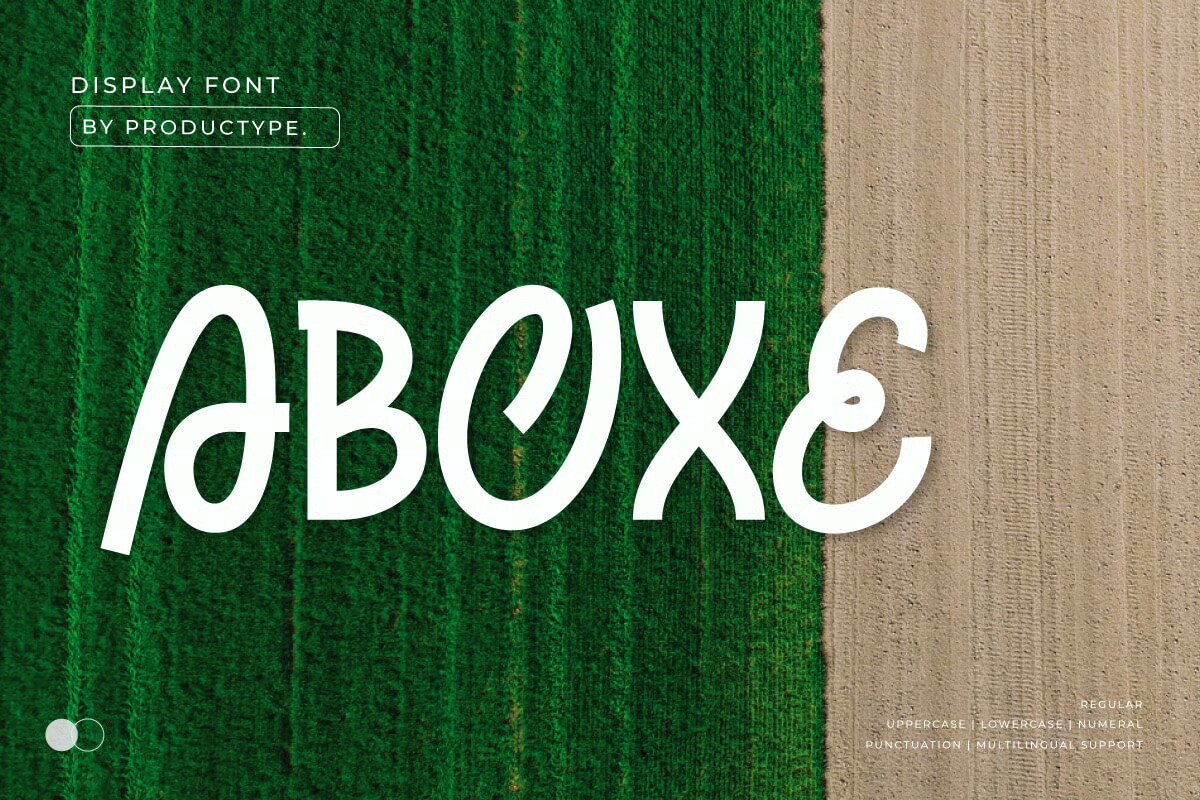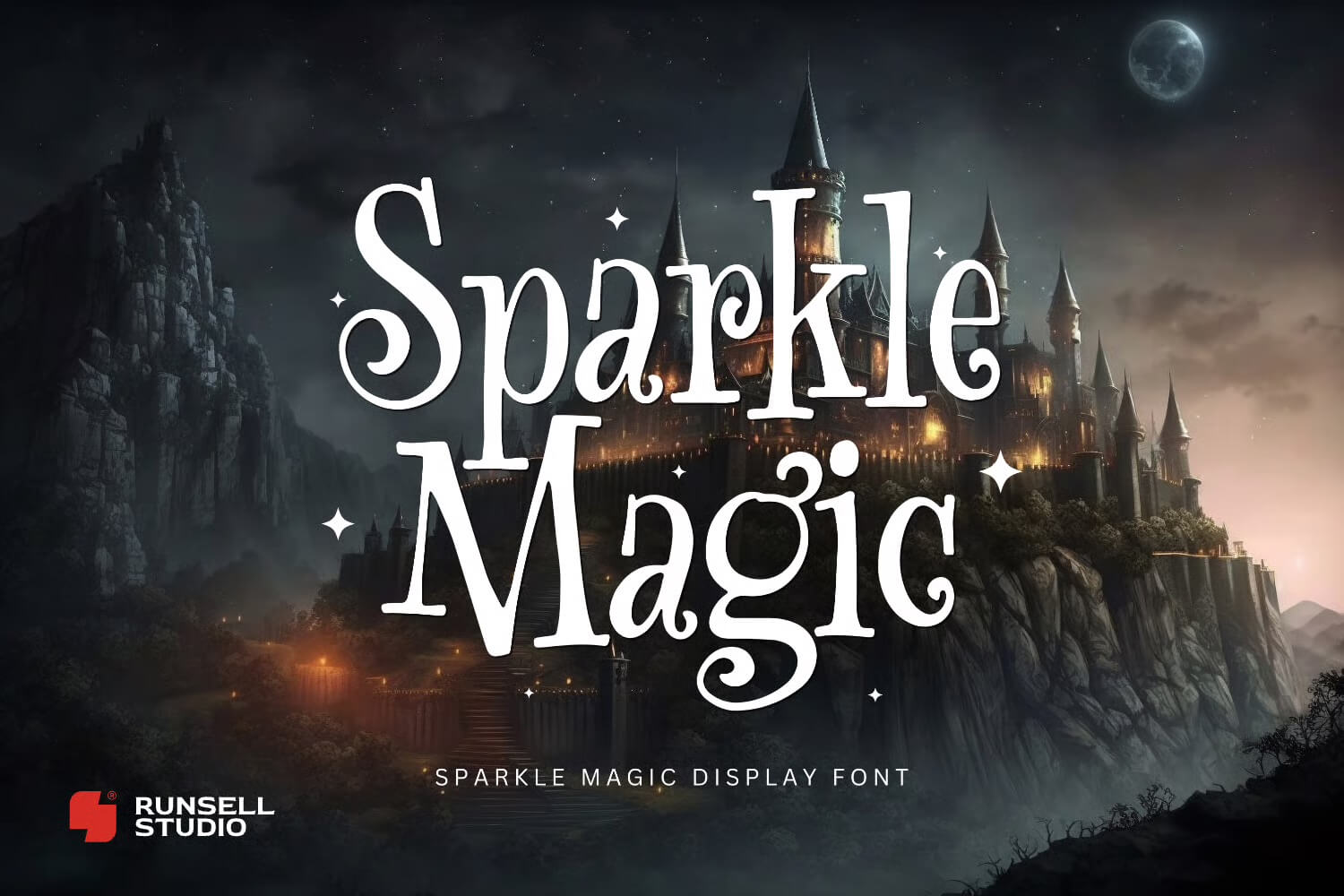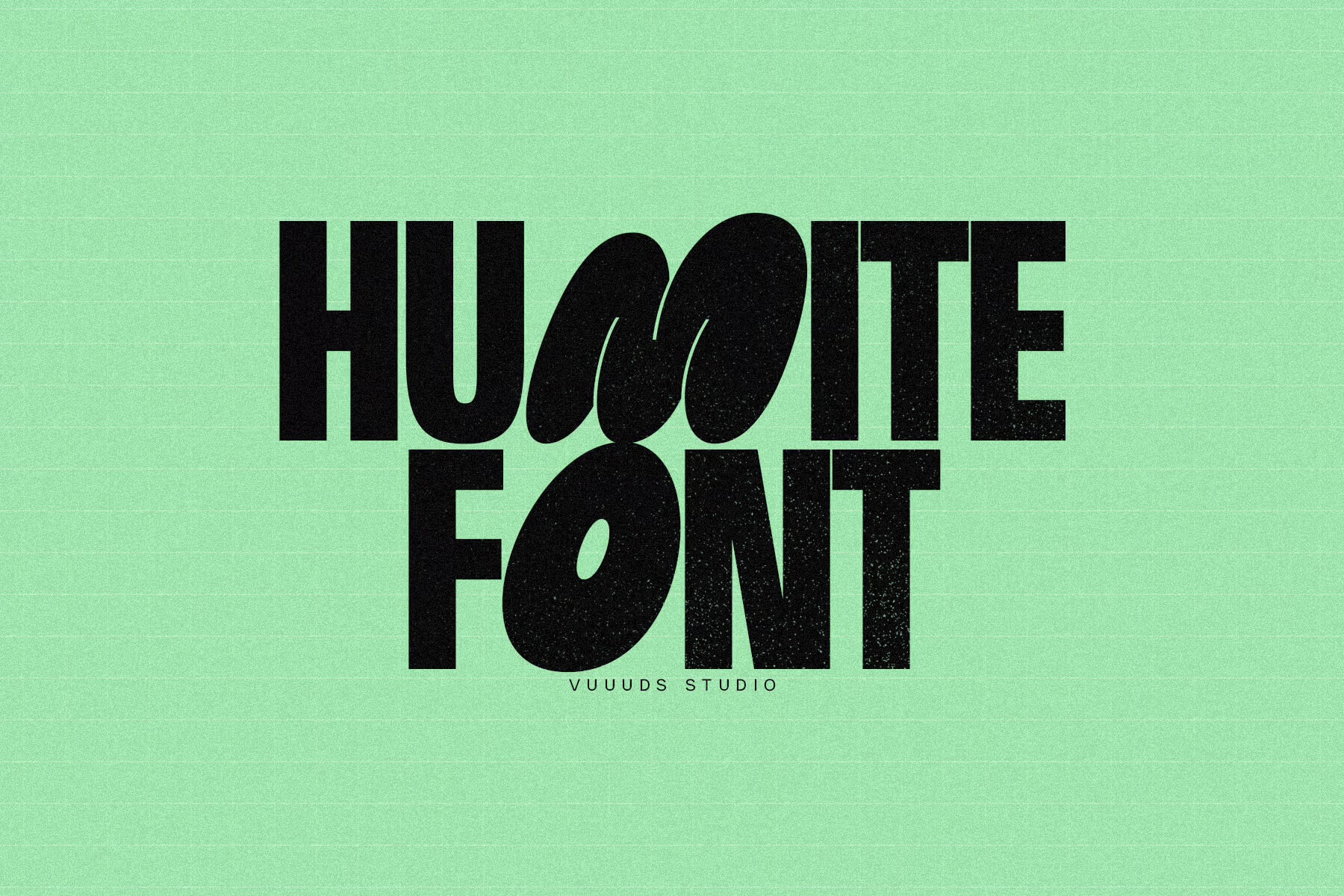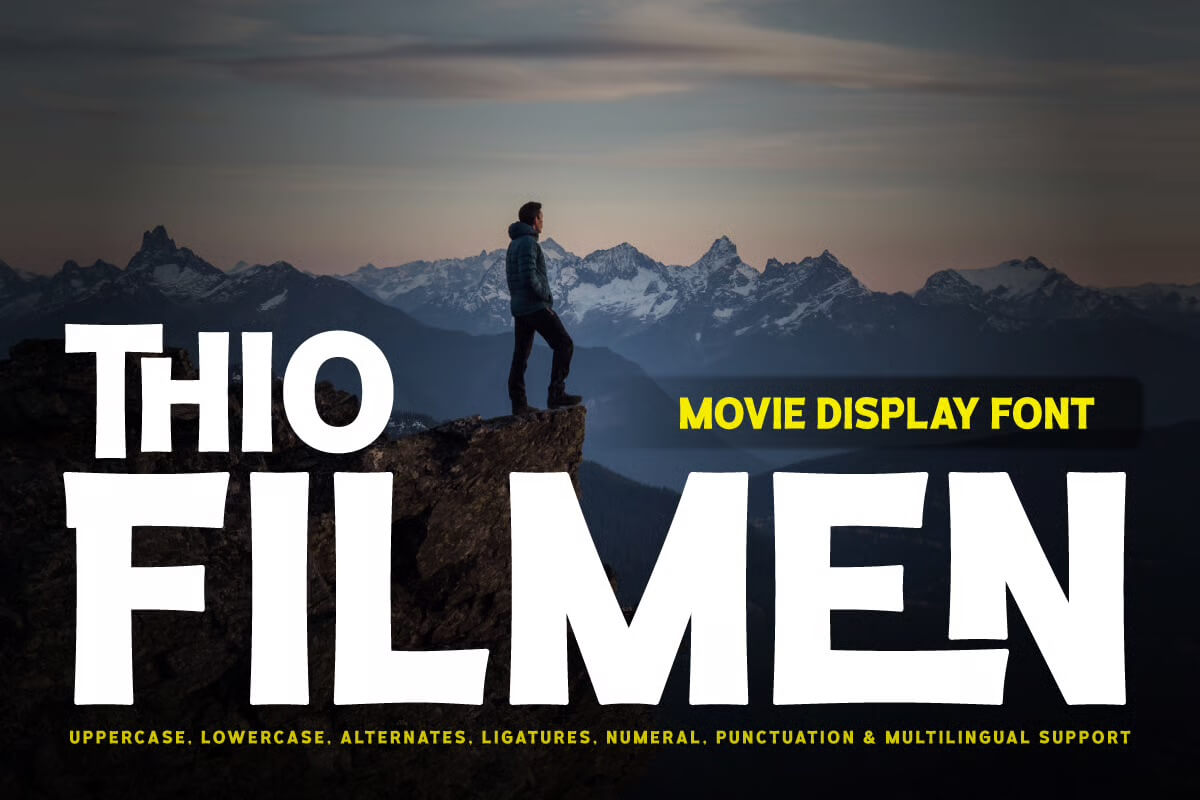
13+ Fonts to Use for Posters
You know that feeling when you’re walking down the street, and a poster just grabs you? Not because of what it says at first, but because something about it looks right.
Nine times out of ten, that’s the font doing its job. I’ve spent years designing posters for everything from neighborhood garage sales to actual paying clients, and I can tell you that picking the right font is probably the most important design decision you’ll make.
This article breaks down exactly which fonts work for posters and why, so you can stop second-guessing yourself and start creating designs that people actually notice.
Poster with colorful background rays highlights "13+ Epic Bold Fonts for Posters That Will Make Your Designs Pop!" in prominent, vibrant text style.
Top Fonts To Use For Posters
Barongko Pastry
A person holds baguettes wrapped in cloth, with the text "Barongko Pastry" displayed prominently over the image.
Barongko Pastry feels playful and charming with a cute serif look that works great for posters, packaging, and branding. It has decorative touches that give a handmade, friendly vibe while remaining versatile enough for labels, invitations, and quirky editorial layouts.
Aboxe – Display Font
Aerial view of green and brown fields with overlay text "ABOVE." Graphic layout for a display font advertisement by Productype.
Aboxe feels like sunshine in type form, playful and relaxed with friendly rounded shapes that suit summer branding, posters, and party invites. It’s versatile, easy to read at many sizes, and packs fun alternates and ligatures to make designs feel warm and joyful.
Halloween Horror – Sparkle Magic
A mystical castle on a cliff under a starry sky, featuring the text "Sparkle Magic" in a whimsical font style.
Sparkle Magic is a chilling Halloween font with sharp, haunted letterforms that radiate spooky tension. It feels perfect for horror posters, thriller covers, and witchy branding, bringing a gothic, eerie vibe that instantly evokes mystery and fear.
Bilqust – Elegant Logo Font
Text showcases "Bilqust" in an elegant serif font on a warm brown background with the caption "Nirmana Visual."
Bilqust feels like a refined, stylish serif made for logos and upscale branding. It blends classic charm with modern clarity so your designs feel elegant without being fussy. Perfect for fashion, posters, and any project that needs a confident, classy voice.
Humite
Bold black text "Humite Font" appears on a textured green background, displaying a modern design style by Vuuuds Studio.
Humite feels fresh and friendly with a modern sans serif core and bold rounded accents that pop. It pairs clean lines with playful weight for versatile branding, headlines, and logos. Alternate glyphs add character and multilingual support keeps it practical for global projects.
Mansure
Blurry grayscale background with a person. Bold text highlights "Mansure" sans-serif typeface features: multilingual support, alternate characters, modern experimental, regular, and oblique.
Mansure is a warm, friendly sans serif that feels classic without being stiff. It offers stylish alternates for personality while staying clean and readable. Ideal for logos, posters, packaging and greeting cards when you want charm with professional clarity.
Thio Filmen – Movie Display
A person stands on a mountain cliff at sunset, gazing at snowy peaks. Bold typography overlays the scene promoting a movie display font.
Thio Filmen feels like a bold, cinematic poster font with playful cartoon energy. Each letter packs drama and presence while staying approachable, perfect for headlines, logos, and movie-style designs. It’s sturdy, expressive, and ready to make any title feel epic and fun.
Riders of the Wild West
Vintage Wild West typography design featuring Monument Valley landscape. A lone person on horseback traverses rocky terrain, evoking frontier tales.
Riders of the Wild West feels rugged and nostalgic while staying clean and bold. It channels classic cowboy poster energy with strong serif shapes and roomy spacing, perfect for attention grabbing headlines, vintage signage, and projects that need adventurous, old west personality.
Backer Town
Bold white text on a red background reads "Backer Town Elegant Logotype Font" with a bottle and package at the edges.
Backer Town feels like casual handlettering with warm, playful strokes that work great for logos, posters, apparel, and friendly branding. It has natural, brushlike rhythm and clean spacing so designs look handcrafted without feeling messy or overdone.
Brewheat
Promotional poster for Brewheat font by Coastal Type, highlighting its edgy, hard-working attitude with an American gold standard and fresh local ingredients.
Brewheat feels like a bold college classic with a gritty, hardworking edge that instantly commands attention. It’s an all-uppercase display font with vintage character and sturdy presence, perfect for posters, streetwear, badges, and anything that needs gutsy, athletic attitude.
You don’t need to use every trick in the book to make your poster stand out. You just need to choose the right font, use it confidently, and let it do its job.
Trust your instincts, test your designs at actual size, and pay attention to what works. That’s how you develop a sense for typography that’ll serve you for every poster you create.